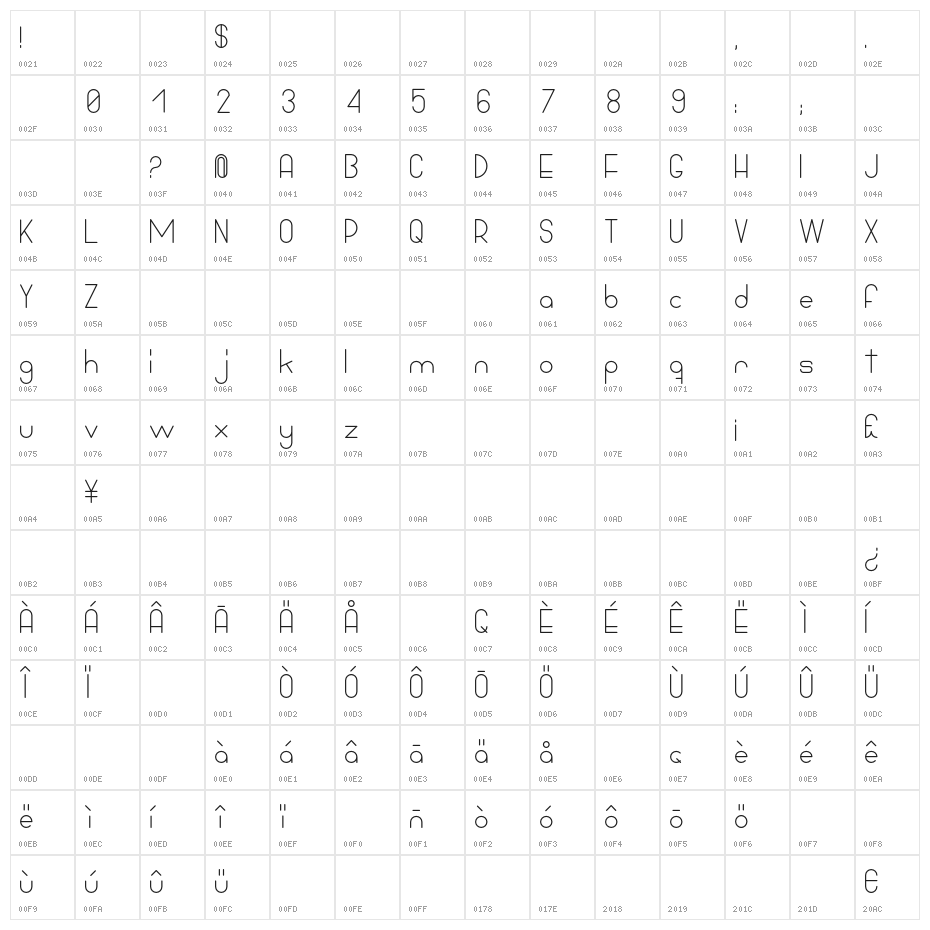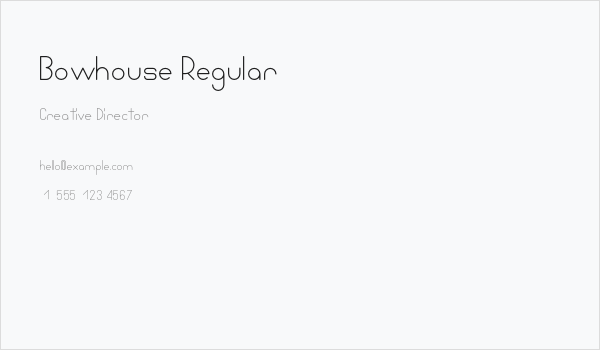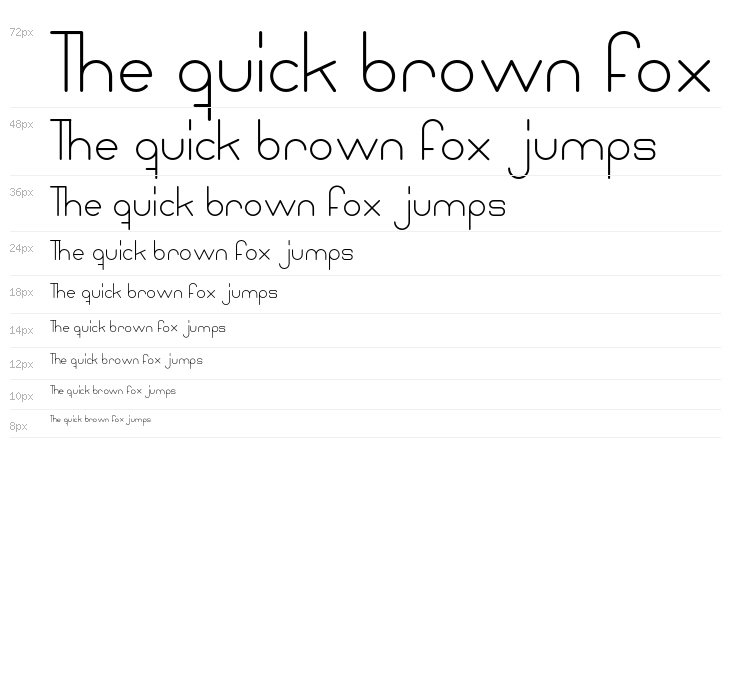
Bowhouse Regular Font
Bowhouse Regular Description
This font features a clean and geometric design with a modern touch. The characters are constructed with consistent line weights, giving it a uniform appearance. The rounded edges and open counters provide a friendly and approachable feel. The uppercase letters are tall and slightly narrow, while the lowercase letters maintain a balanced proportion. The numerals are clear and easily distinguishable, making them suitable for various applications. Special characters are well-integrated, maintaining the overall aesthetic of the font.
| Proposed Projects | Ideal for modern branding, minimalist design projects, tech-related content, and user interfaces. |